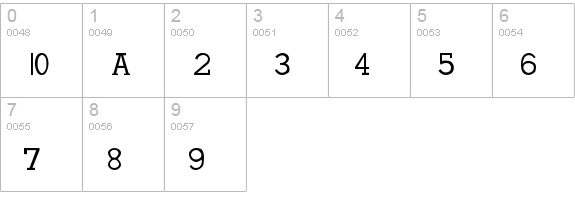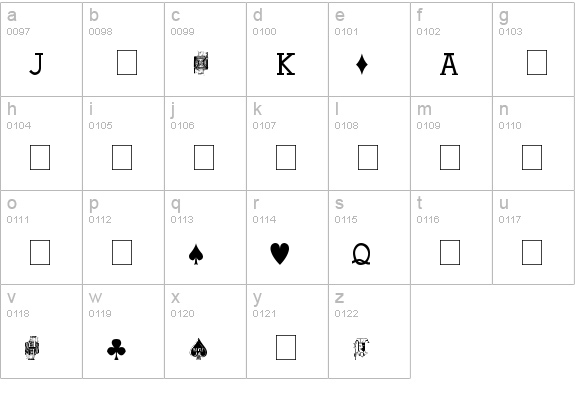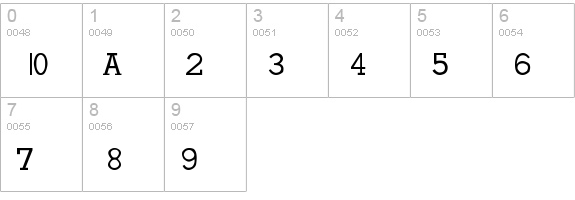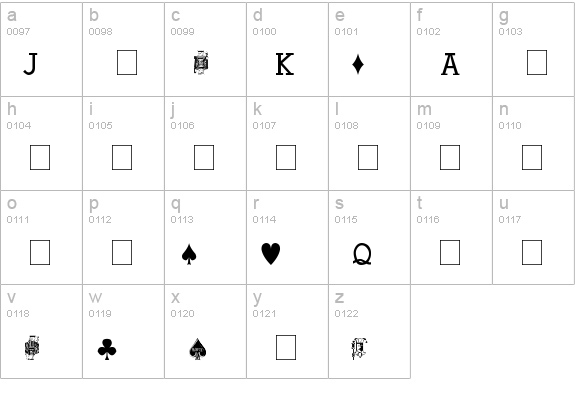
Hoyle Playing Cards Font Details
Introducing the Hoyle Playing Cards font - a beautifully crafted typeface that pays homage to the classic card designs found in traditional playing cards. The intricate details and elegant curves of this font capture the essence of sophistication and nostalgia associated with card games. This versatile font is perfect for a wide range of projects, from invitations and greetings cards to posters and branding materials. Its timeless appeal and vintage charm make it a popular choice among designers and creatives seeking to add a touch of elegance to their work. Best of all, the Hoyle Playing Cards font is available for free download at FontsMarket.com. Simply visit the website and start using this exquisite typeface in your projects today. Experience the magic of Hoyle Playing Cards font and elevate your designs with its unique style and charm.